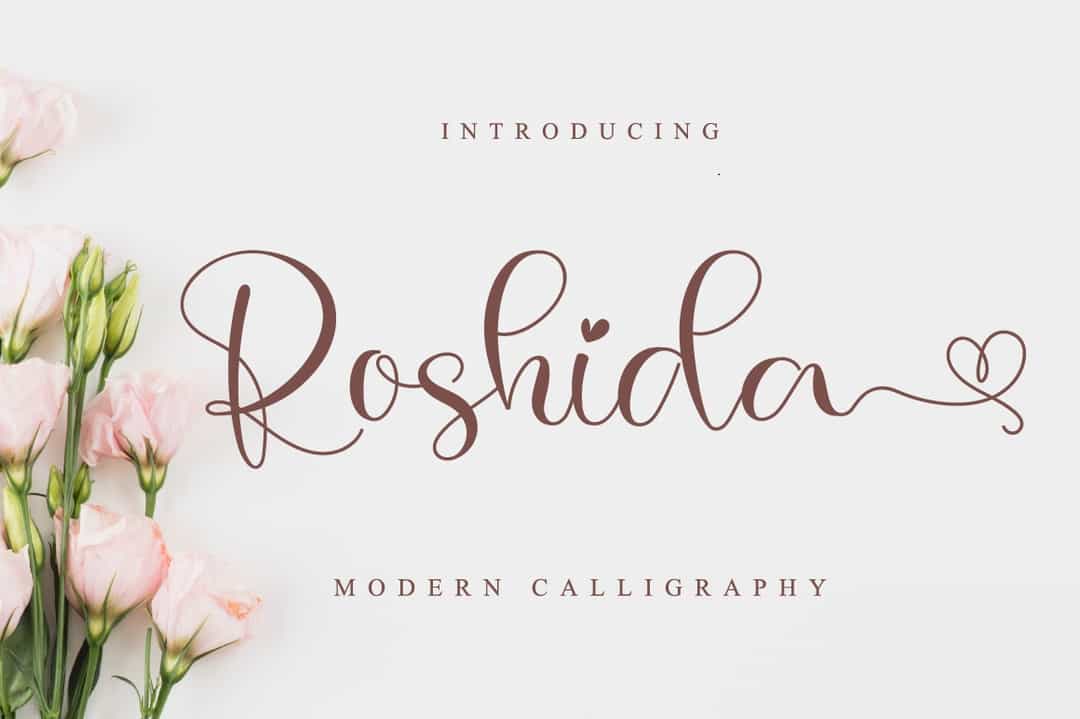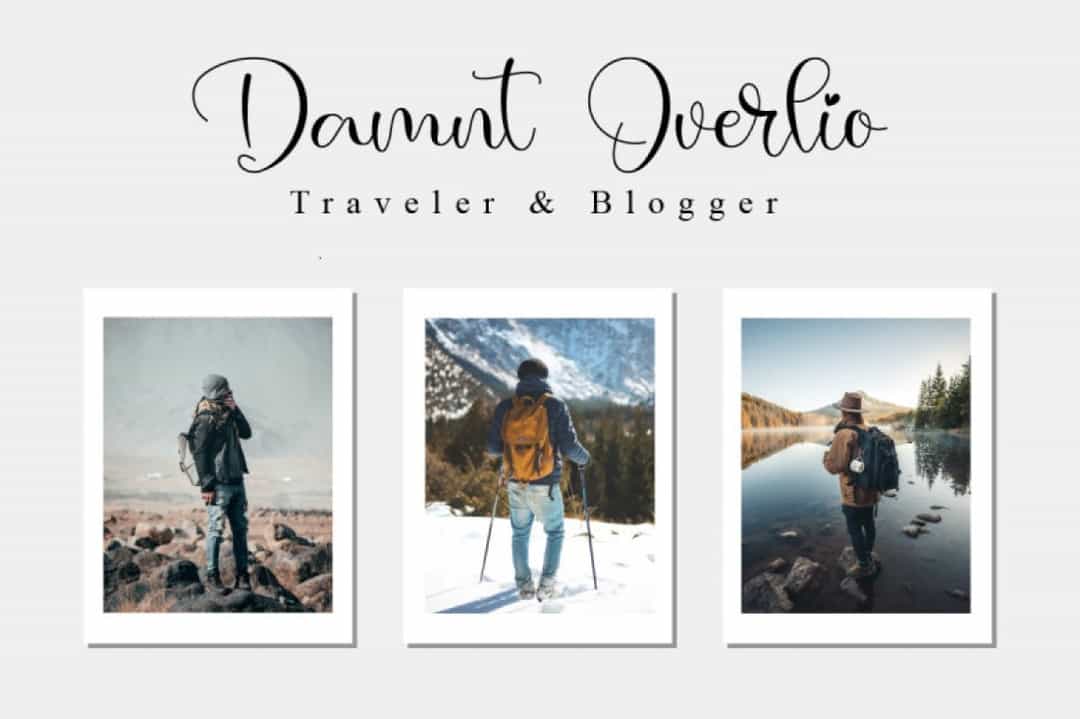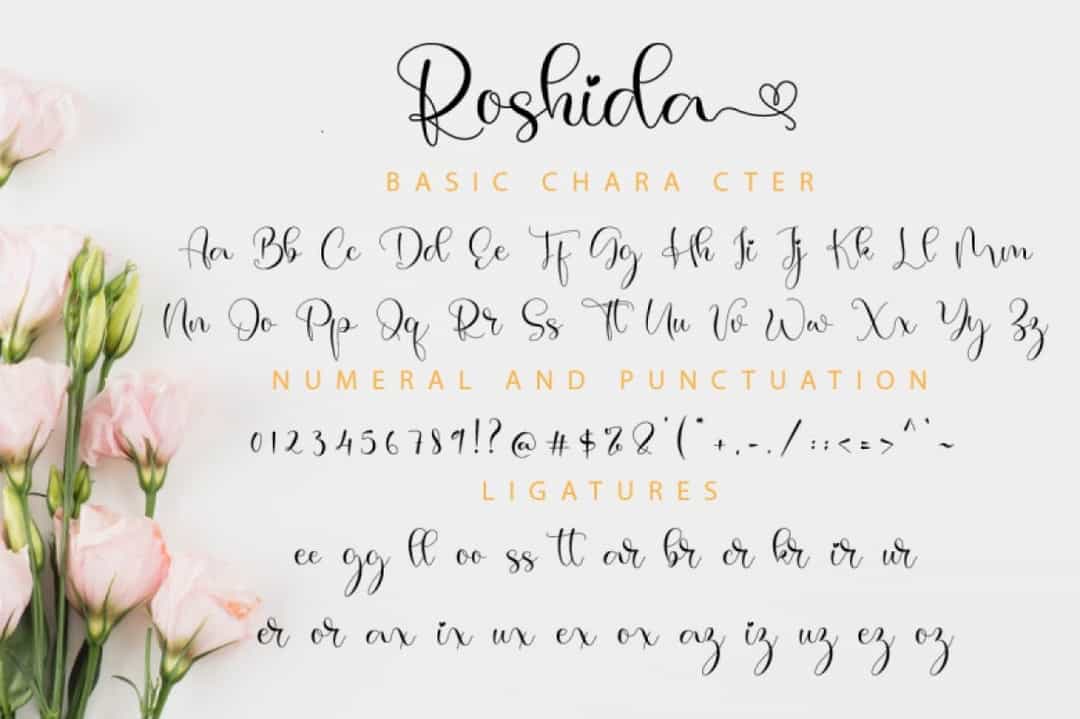
Roshida is an attractive and elegant calligraphy font, perfect for use on invitations to weddings, thank-you cards, greeting cards and all other designs requiring handwritten touches. PUA encoded, you have access to all the characters and strokes you require easily!